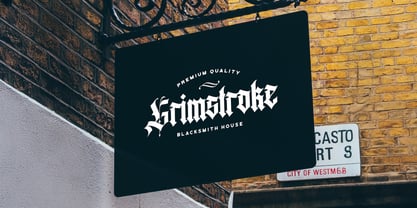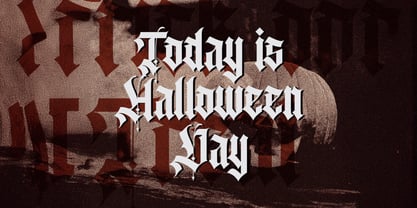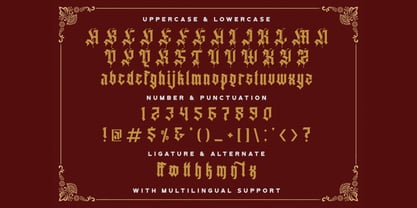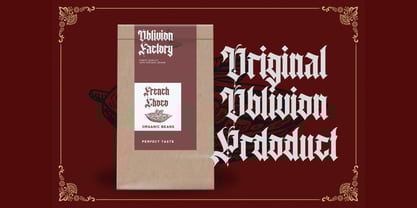
The Agathiqy Font Family was designed by Virgiawan Listanto and published by Stringlabs Creative Studio. Agathiqy contains 1 styles.
Agathiqy is a powerful Blackletter font that blends gothic tradition with a sharp modern edge. With its bold strokes, dramatic serifs, and intricate details, Agathiqy commands attention and brings a sense of strength, history, and intensity to any design. Perfect for posters, logos, album covers, tattoo designs, and edgy branding, Agathiqy is built for those who want to make a bold, unforgettable statement.
Designers: Virgiawan Listanto
Publisher: Stringlabs Creative Studio
Foundry: Stringlabs Creative Studio
Design Owner: Stringlabs Creative Studio
Agathiqy